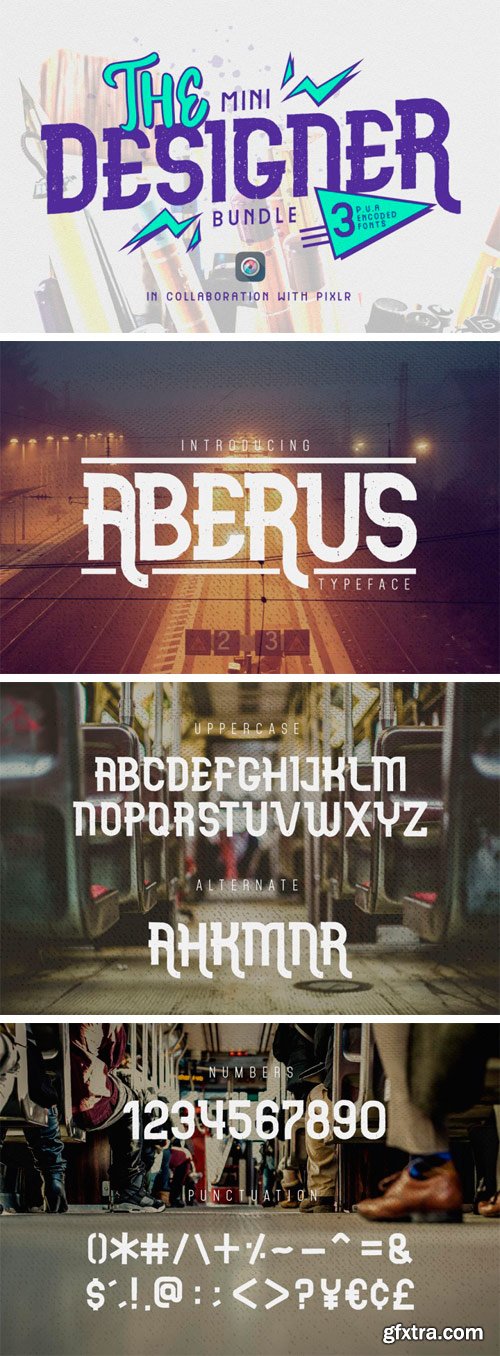
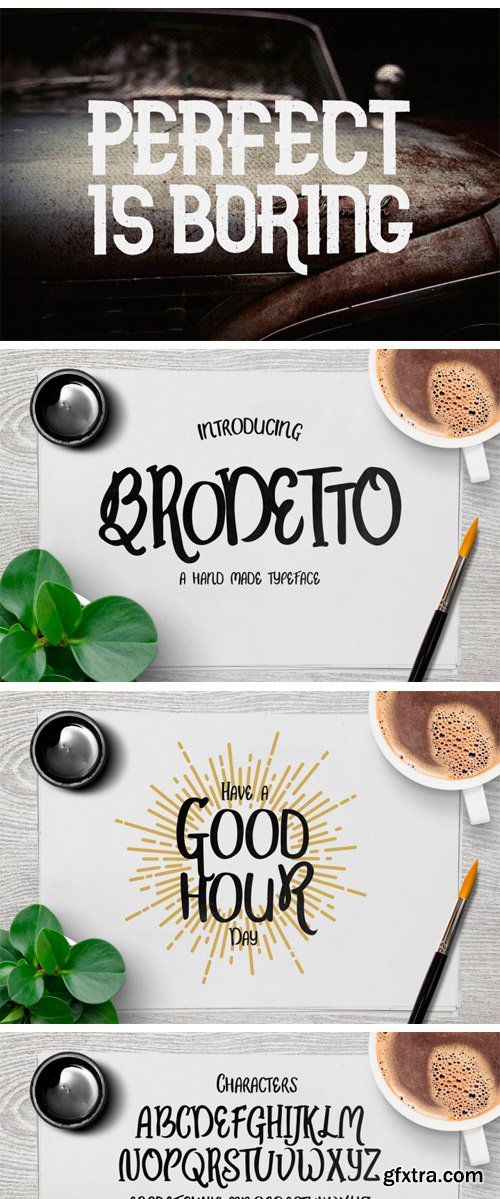
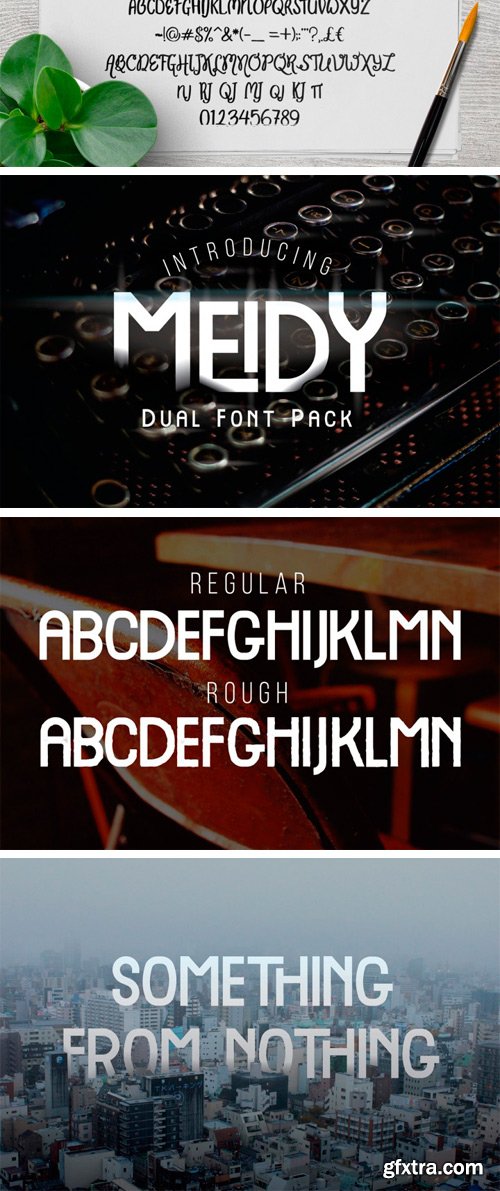
Thehungryjpeg - The Mini Designer Bundle
Includes 3 PUA-encoded fonts with stylistic characters. Great for any print projects, and can also be used for posters, invitations, logos, badges, etc. The pack can be accessed in full by any crafters or designers, without the requirement for extra design software, such as Photoshop or Illustrator. Enjoy!